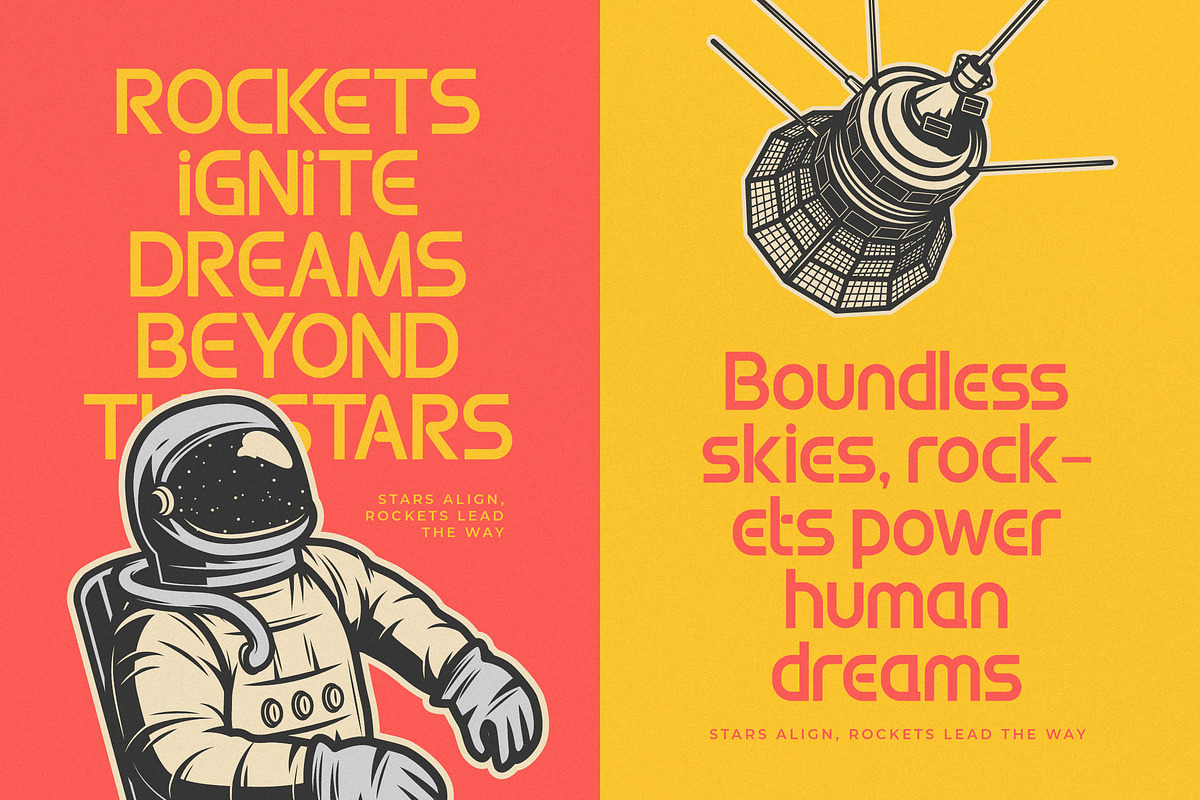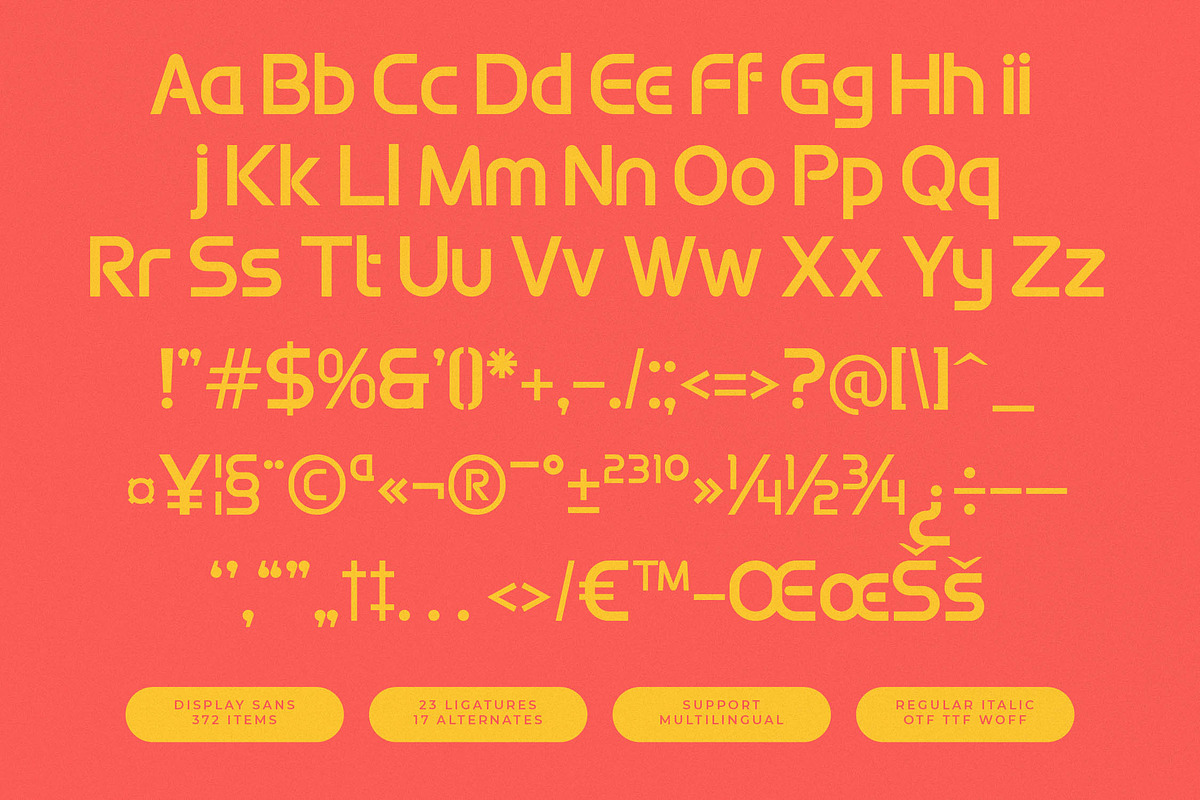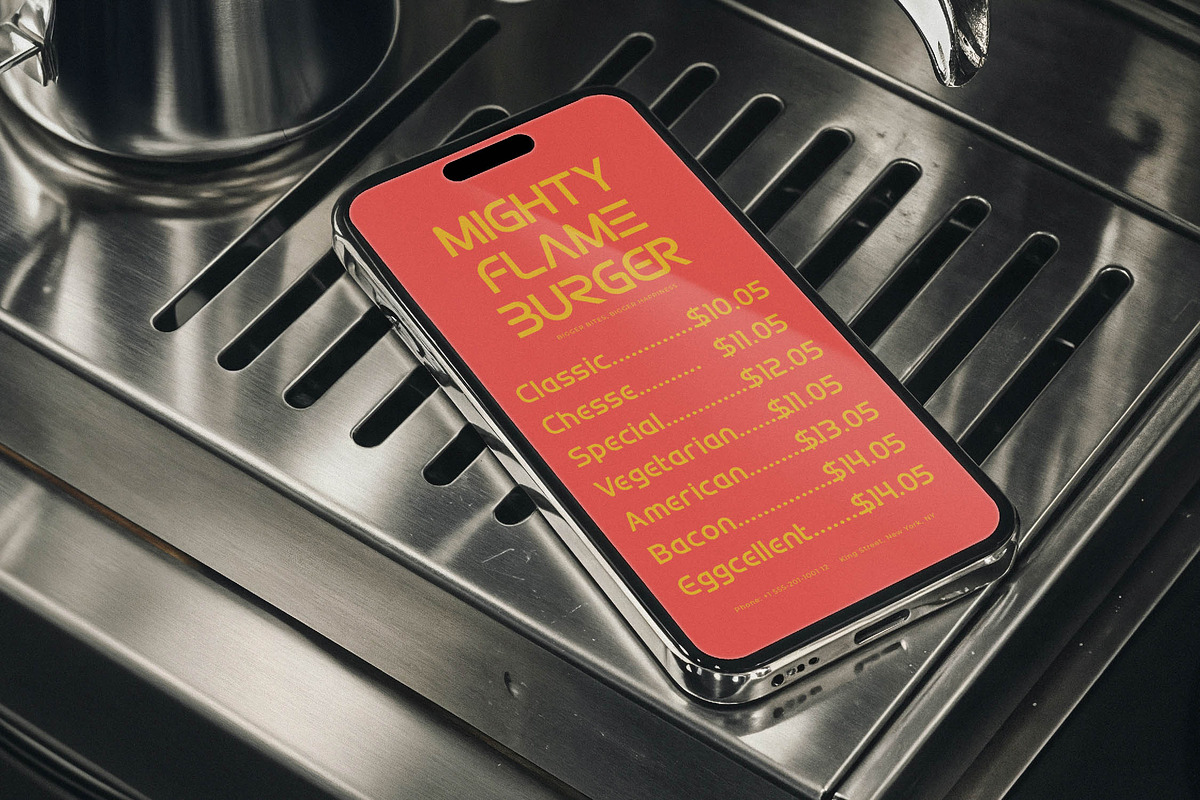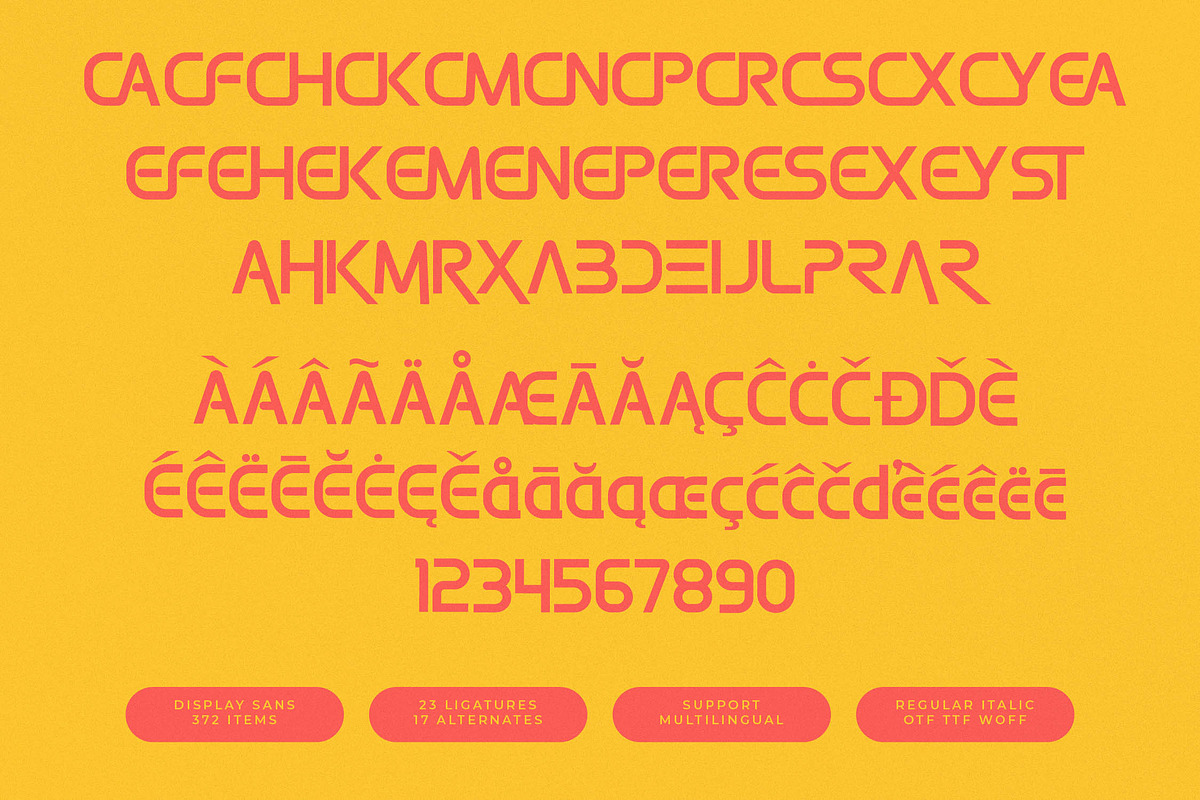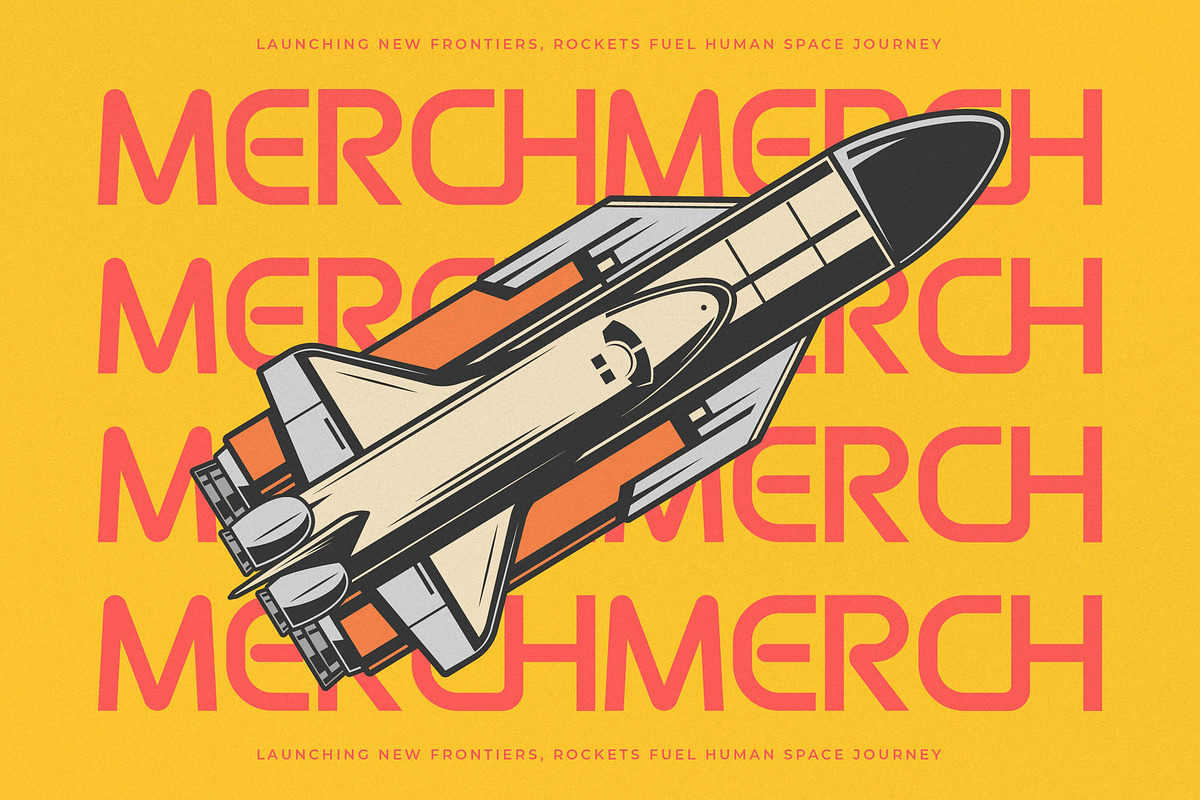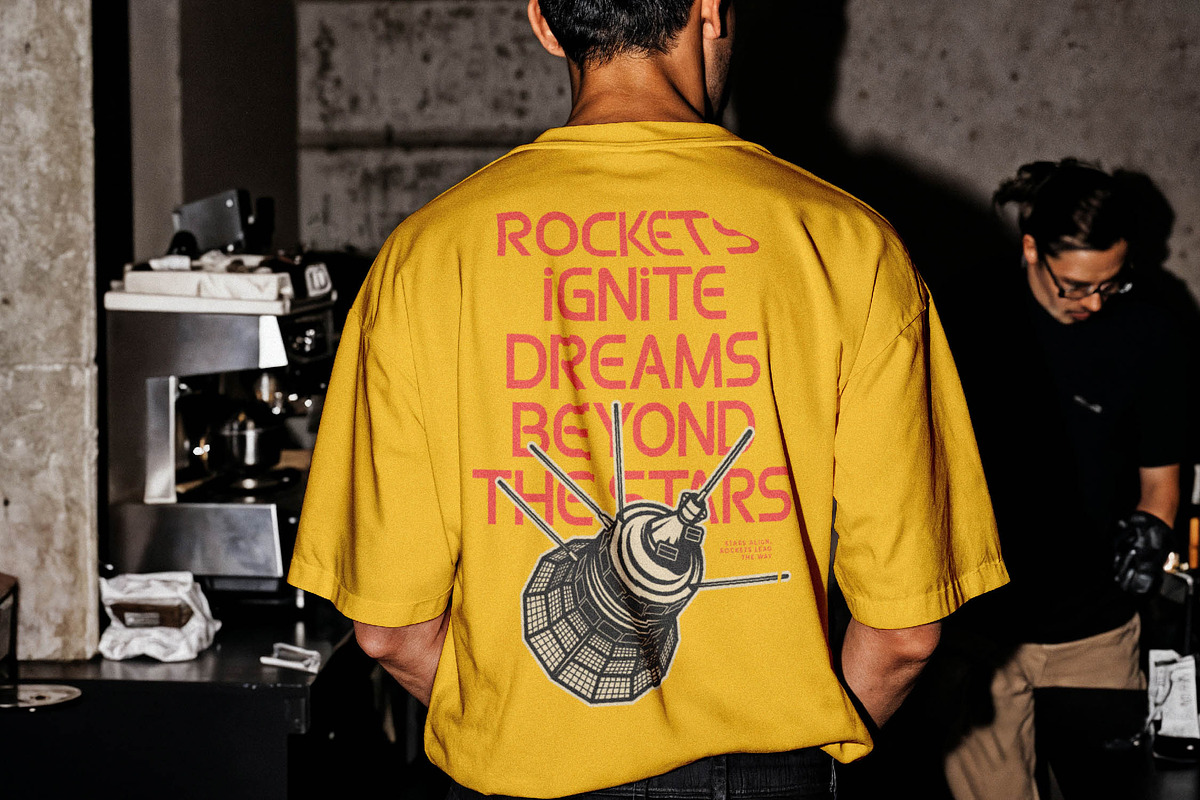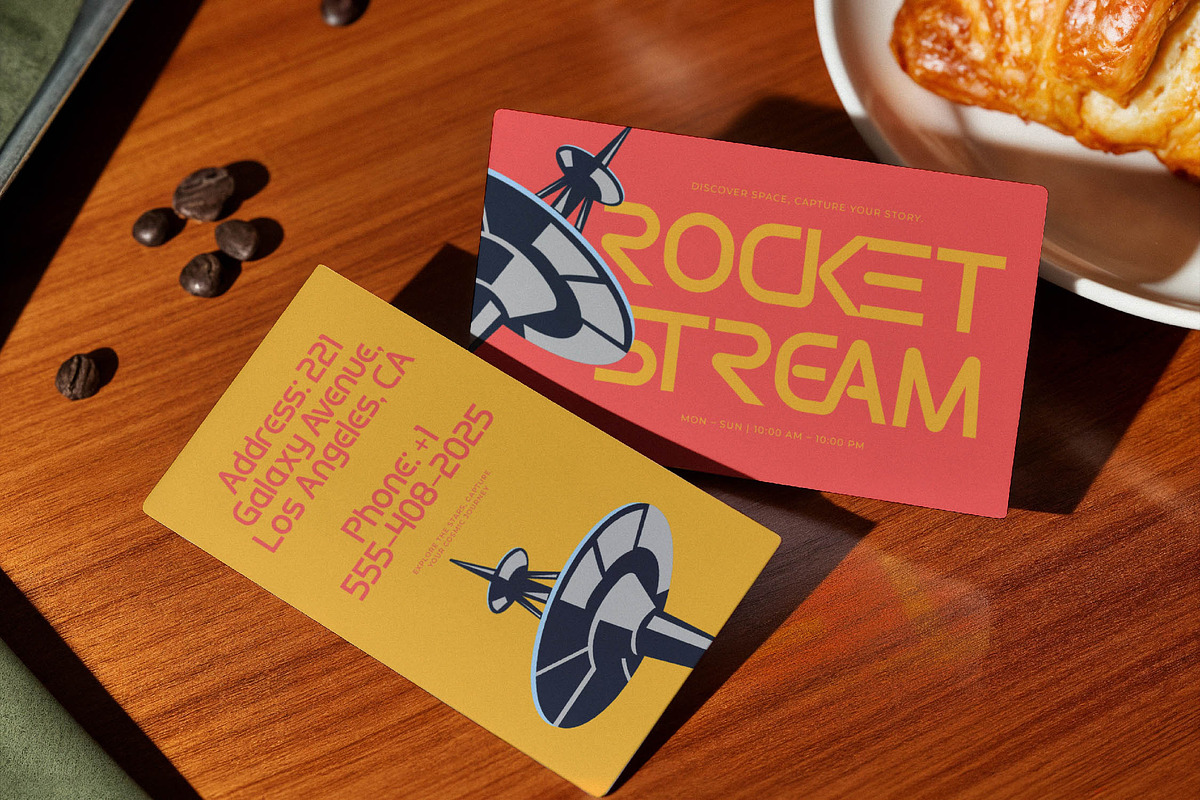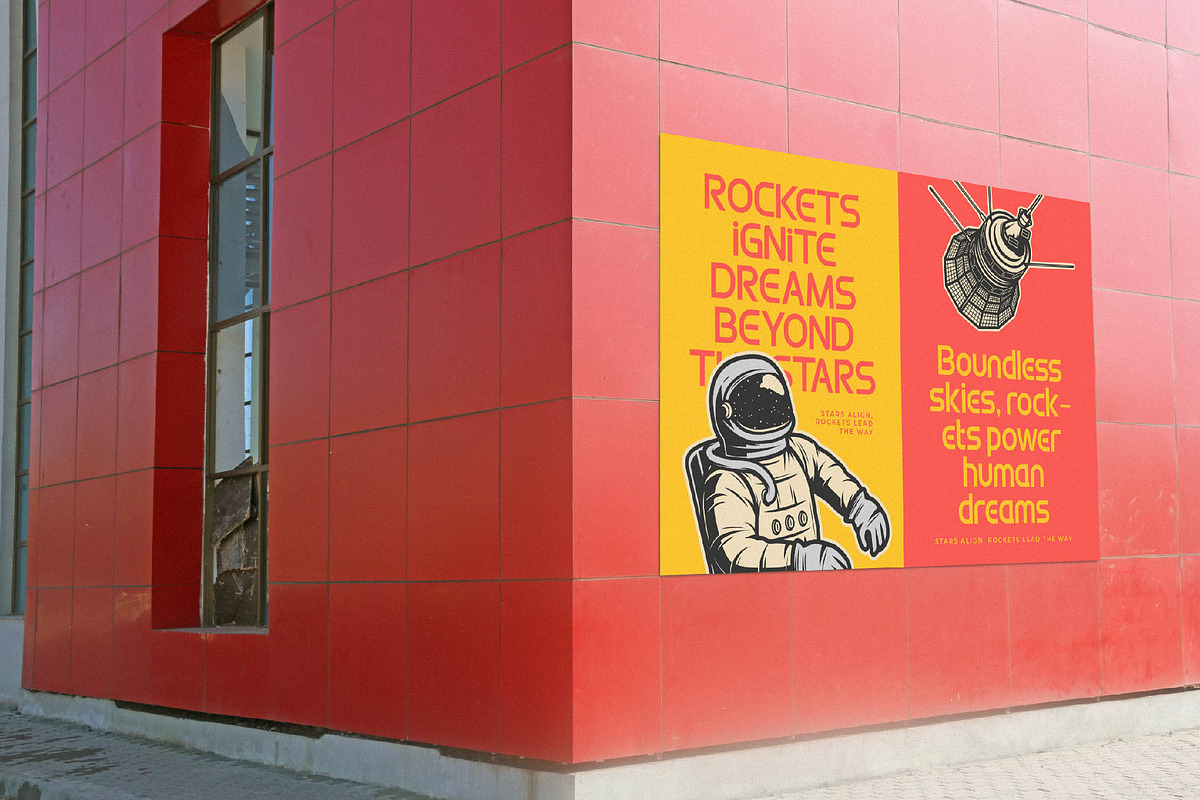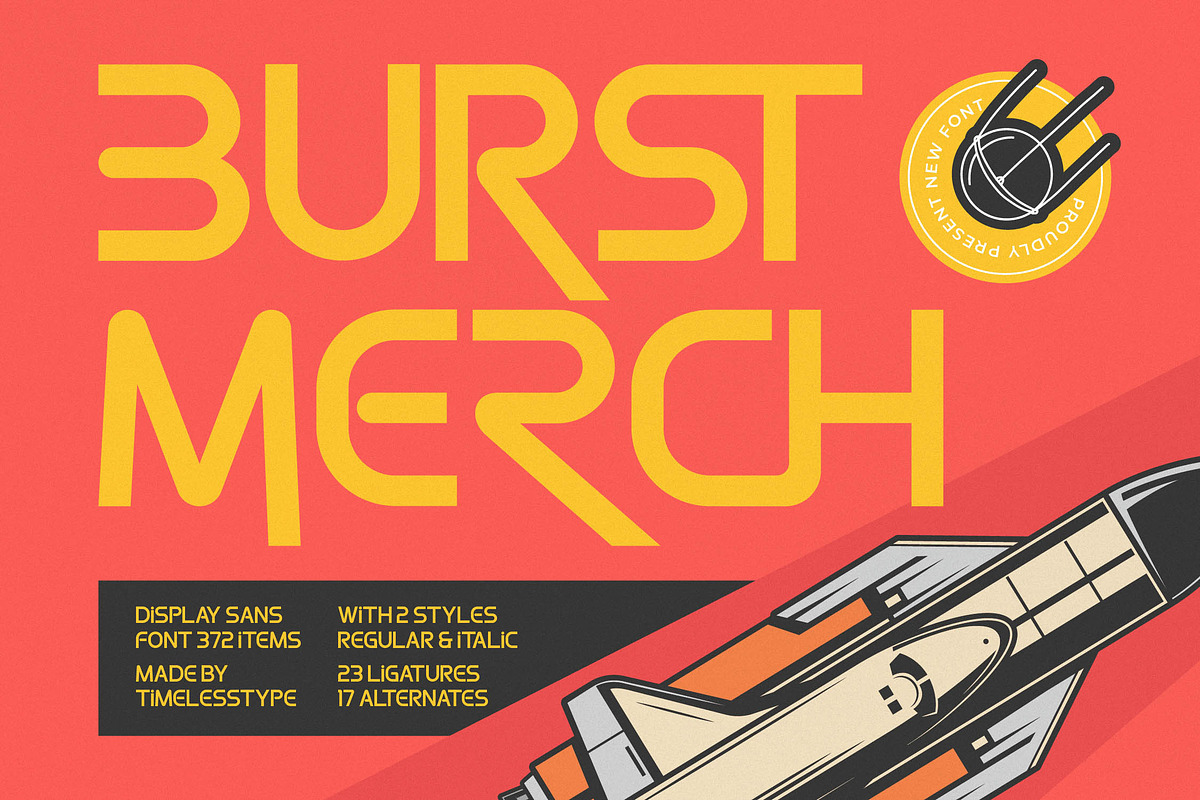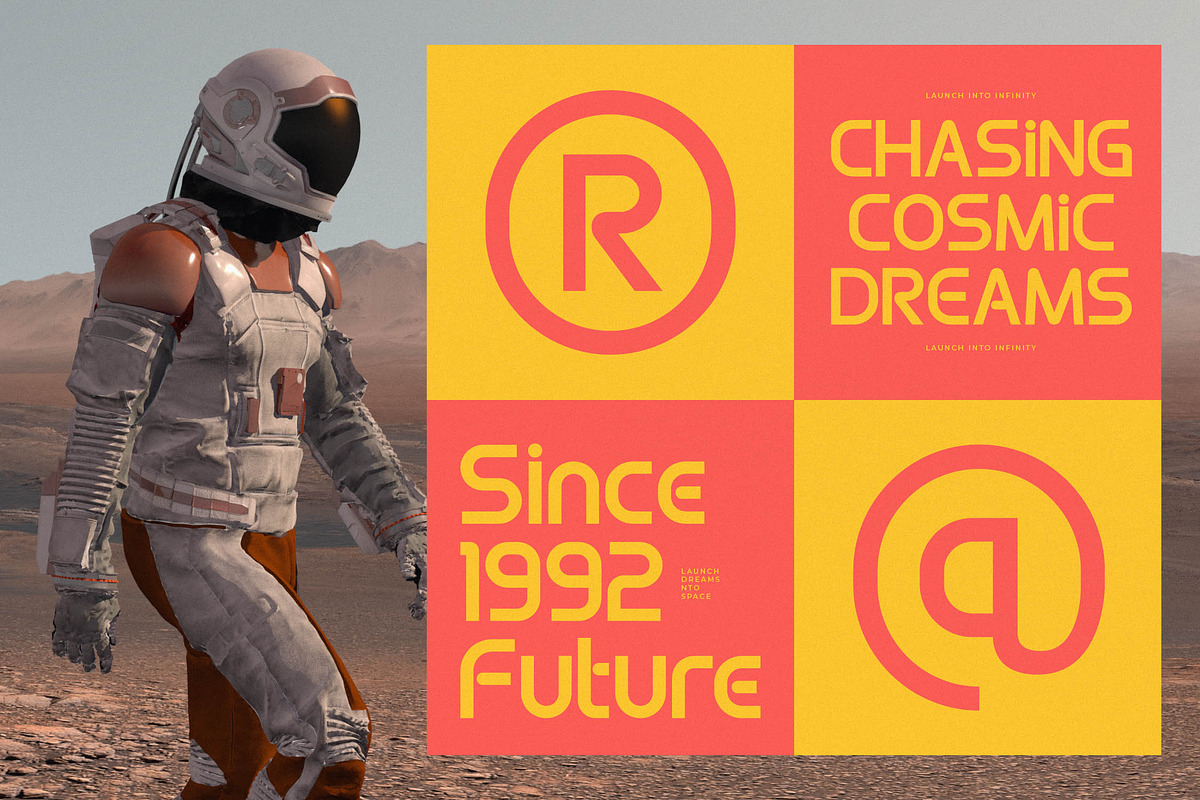
Burst Merch Futuristic Display Sans
Ignite your creative projects with the electrifying energy of Burst Merch, a font designed to command attention and leave a lasting impression on any audience. This typeface isn't just a set of characters; it's a visual powerhouse that bridges the gap between retro nostalgia and cutting-edge futurism.
Inspired by the golden age of space exploration and the sleek aesthetics of vintage tech, this font captures the pioneering spirit of interstellar travel. Every curve and angle echoes the design of mid-century satellites and futuristic spacecraft, offering a unique visual journey through time and space.
With its bold, geometric structure, this modern sans display offers a luxury typography presence that delivers an immediate branding impact. It functions as a sophisticated editorial font that brings a unique, high-contrast sans feel to every headline, title, or display layout.
Perfectly aligned with the current modern sans trend, this typeface meets the rising demand for high-quality editorial display fonts in contemporary media. Its character-driven typography allows designers to craft distinct identities that stand out in a saturated digital landscape with avant-garde flair.
From high-end logo design to comprehensive branding systems, this font excels in creating memorable visuals for editorial projects and packaging. Its versatile nature makes it equally suitable for high-octane fashion branding or even a sophisticated wedding suite looking for a bold, modern edge.
Unlock unparalleled creative freedom with over 20 ligatures and unique alternates that allow for custom-tailored text layouts. The font also features stylized swashes, full multilingual support, and a wide range of international characters to ensure your message reaches a global audience.